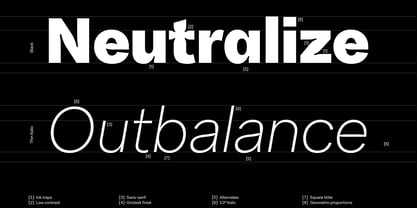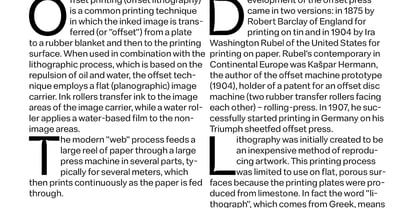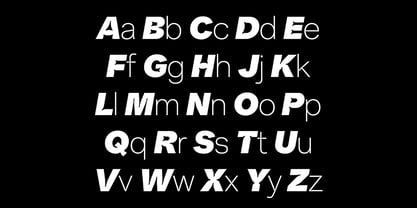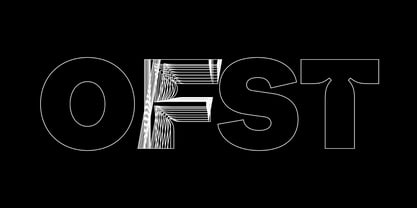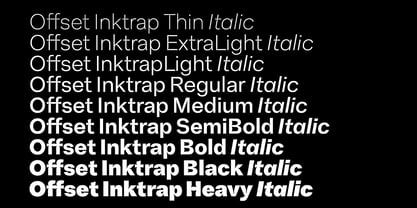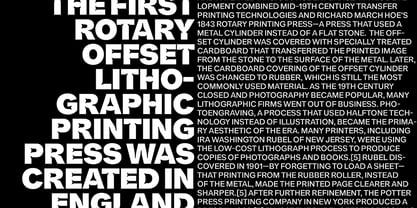
Offset Inktrap
von Blaze Type
Die Schriftfamilie Offset Inktrap wurde von Matthieu Salvaggio entworfen und von Blaze Type veröffentlicht. Offset Inktrap enthält 18 Stile und Familienpaketoptionen. Mehr über diese Familie
Offset is a contemporary grotesque type family that starts from something familiar: system fonts such as Arial. It is not conceived as a revival, but as a shift — a way of working with what already exists and pushing it slightly off balance. The design relies on a rational, functional structure, borrowing the efficiency and neutrality of everyday sans-serifs as a stable foundation. From there, small adjustments in proportions, spacing, and curve tension introduce a quiet contemporary tone. Nothing is decorative, and nothing is there to be noticed for its own sake. Offset is built around clarity and consistency across weights. Open counters, restrained contrast, and carefully tuned metrics allow it to hold up in long texts without calling attention to itself. At larger sizes, these same details start to surface more clearly, giving the typeface a subtle presence without turning it into a statement. Offset was designed as a working tool. It fits naturally in editorial layouts, interfaces, branding systems, and wayfinding, and behaves predictably both on screen and in print. It does not try to stand out, rather it is meant to stay in place and do its job. Offset means to be present but discrete, elegant and efficient .
Designer: Matthieu Salvaggio
Foundry: Blaze Type